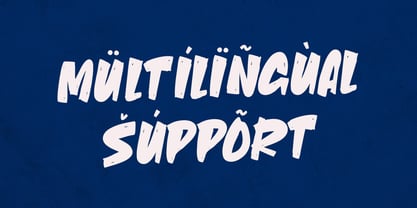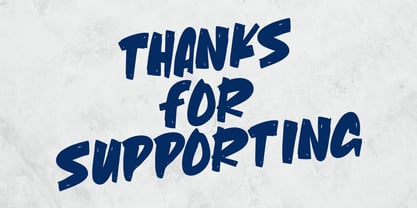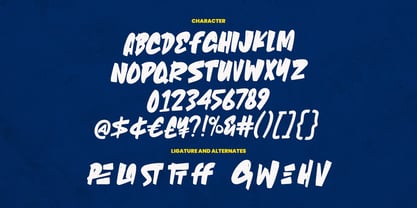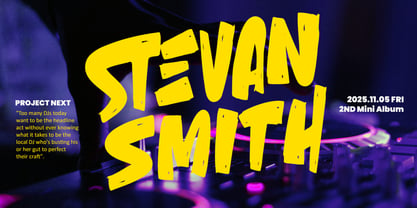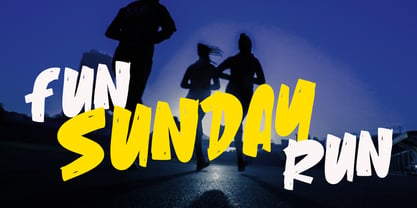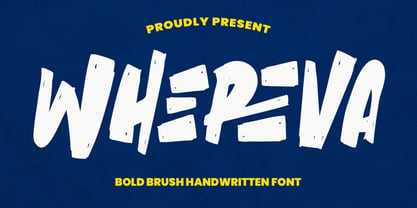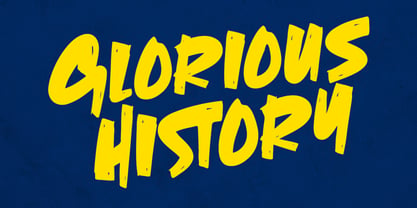
MC Whereva
by Maulana Creative
The MC Whereva Font Family was designed by Gilang Maulana and published by Maulana Creative. MC Whereva contains 1 styles. More about this family
Whereva is a fun, bold, and characterful handwritten brush font. Created by Maulana Creative, this font offers an expressive, energetic, and modern feel, making it suitable for designs, branding, webfont, music, and even social media content. With its dynamic brush style and bold strokes, Whereva captures attention and adds a bold touch to any design. This font is ideal for those looking to create a street art, urban style, or creative typography feel in their graphic design work.
Designers: Gilang Maulana
Foundry: Maulana Creative